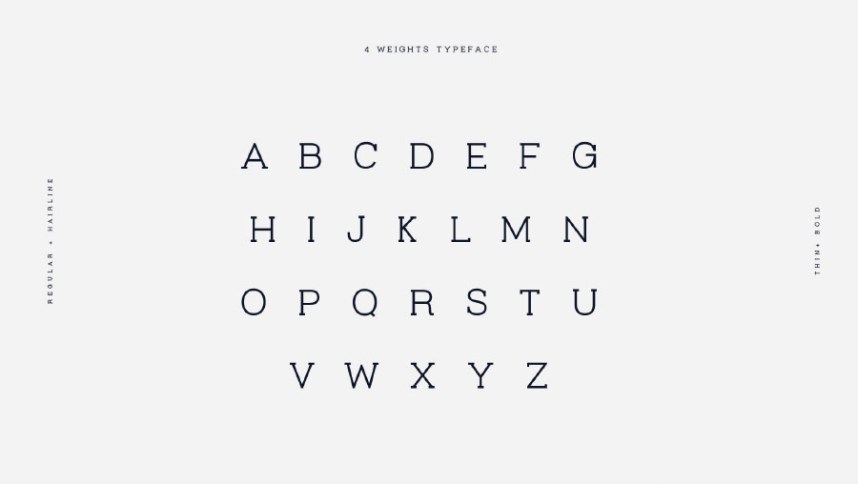
Virtuous Slab Font Family
It will not take a lot of your time in the product design process, or the product introduction to the customer, I would like to introduce you to a beautiful typography, it can make a mark for your product. Introducing Virtuous Slab Typeface. Virtuous Slab designed and shared by Graphic Pear. It’s awesome for packaging, merchandise, posters, invitations, sign making, magazines, creative websites…